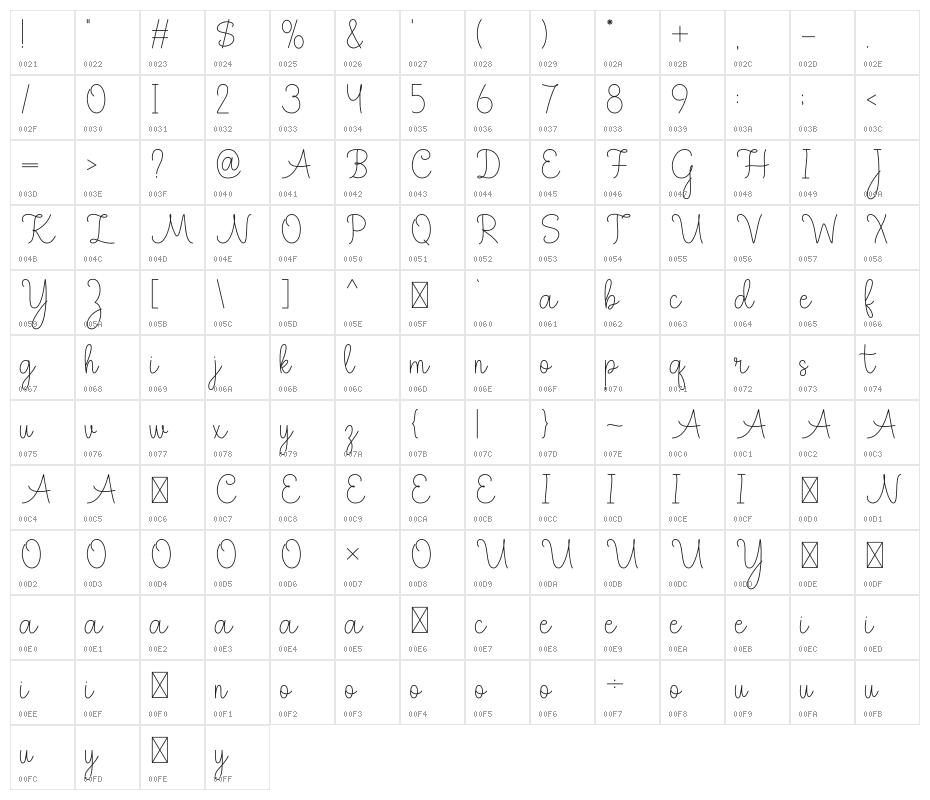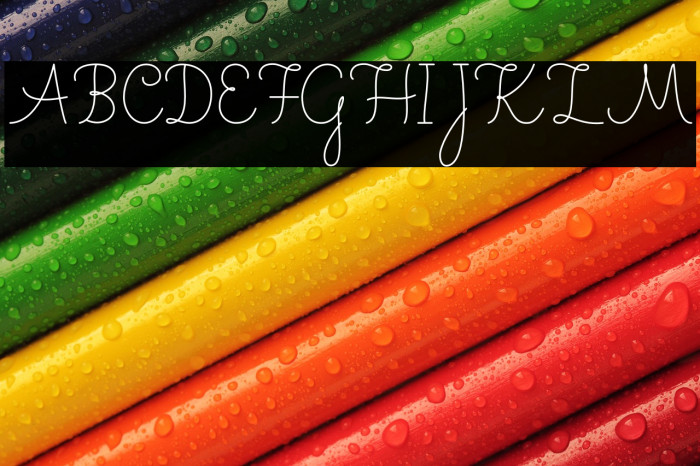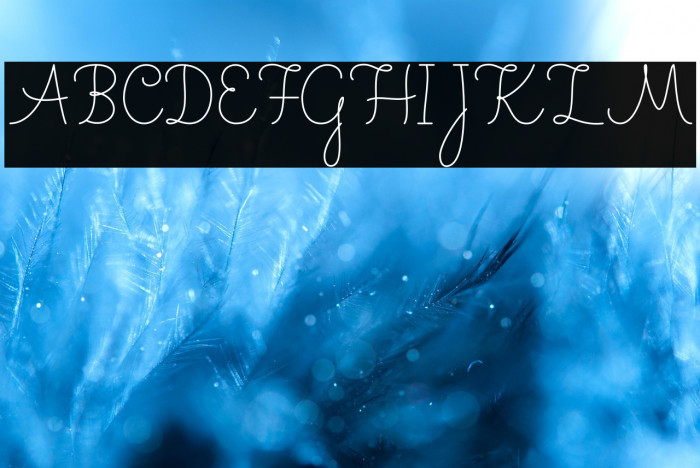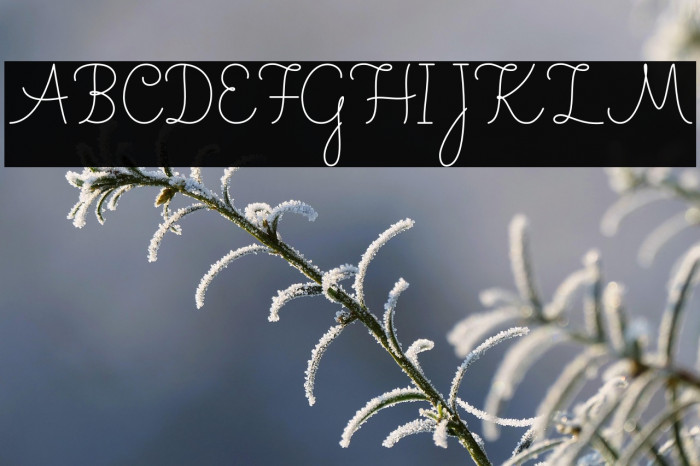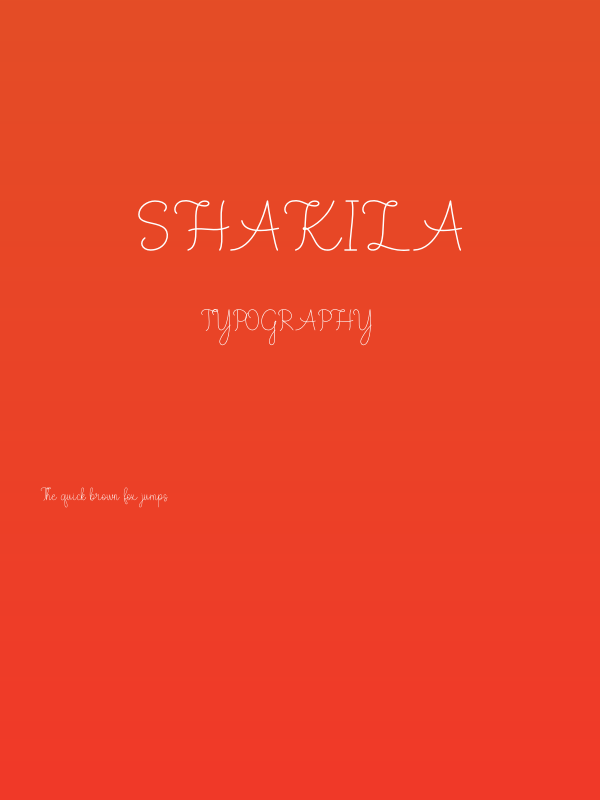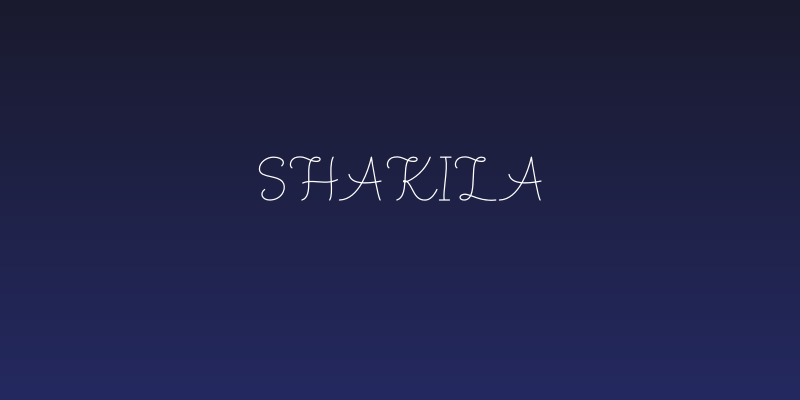
Shakila Font
Shakila Description
This font features a playful and elegant script style, characterized by its flowing, connected letters that mimic natural handwriting. The uppercase letters are slightly more structured, maintaining a balance between formality and casual flair. The lowercase letters are more fluid, with loops and curves that add a whimsical touch. The numerals are consistent with the overall style, maintaining the same flowing lines. Special characters are seamlessly integrated, ensuring versatility in various design contexts. This font is ideal for projects that require a personal, human touch, such as invitations, greeting cards, or branding materials.